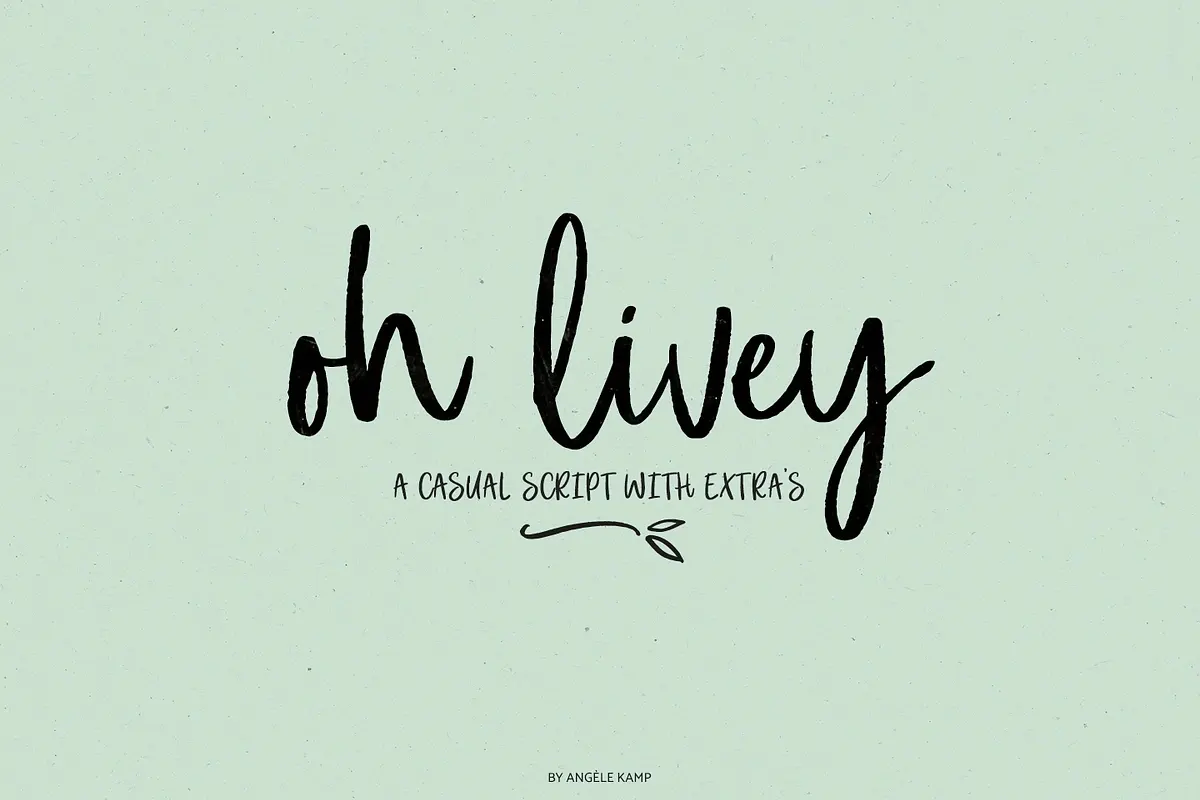
Oh Livey Brush Script Font Free Download is a lively and expressive typeface that captures the essence of modern calligraphy with a playful twist. Hand-brushed and full of character, this font is ideal for logos, social media graphics, wedding designs, and any creative project that needs a personal, handwritten touch.
With its sweeping curves and stylish strokes, Oh Livey delivers a perfect balance between elegance and spontaneity. The font includes a full character set, numerals, and punctuation, offering everything you need for beautifully organic typography.
Whether you're creating a bold headline or a romantic invitation, Oh Livey Brush Script Font Free Download adds personality and charm to your work. Download it today to test how it enhances your project’s style and mood. Don’t forget—a commercial license is required for any professional use. Let your creativity flow with this beautifully crafted brush script!